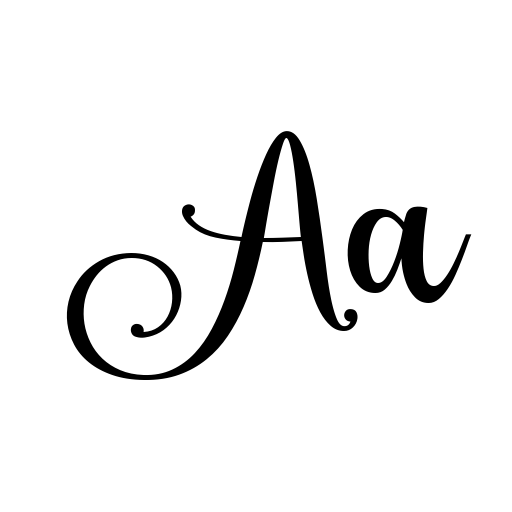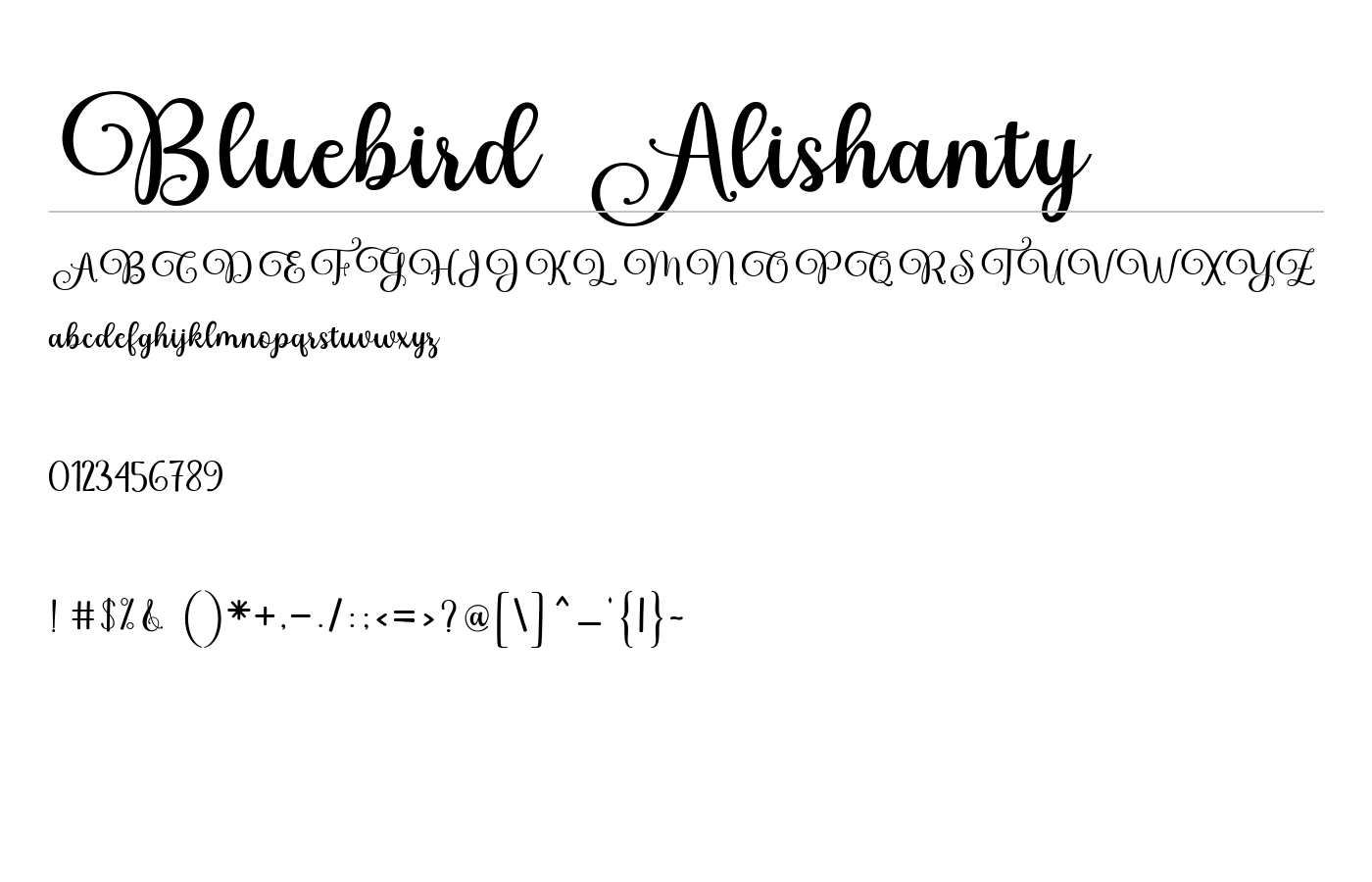
Bluebird Alishanty is an elegant script font with delicate, flowing strokes and refined swashes that give it a graceful, feminine personality. Its fine lines, whimsical uppercase flourishes, and clear lowercase forms make it perfect for sophisticated branding, wedding invitations, and stylish headlines where a touch of luxury and charm is desired. This font shines in decorative use, lending a romantic and timeless feel to any design.
Bluebird Alishanty Font